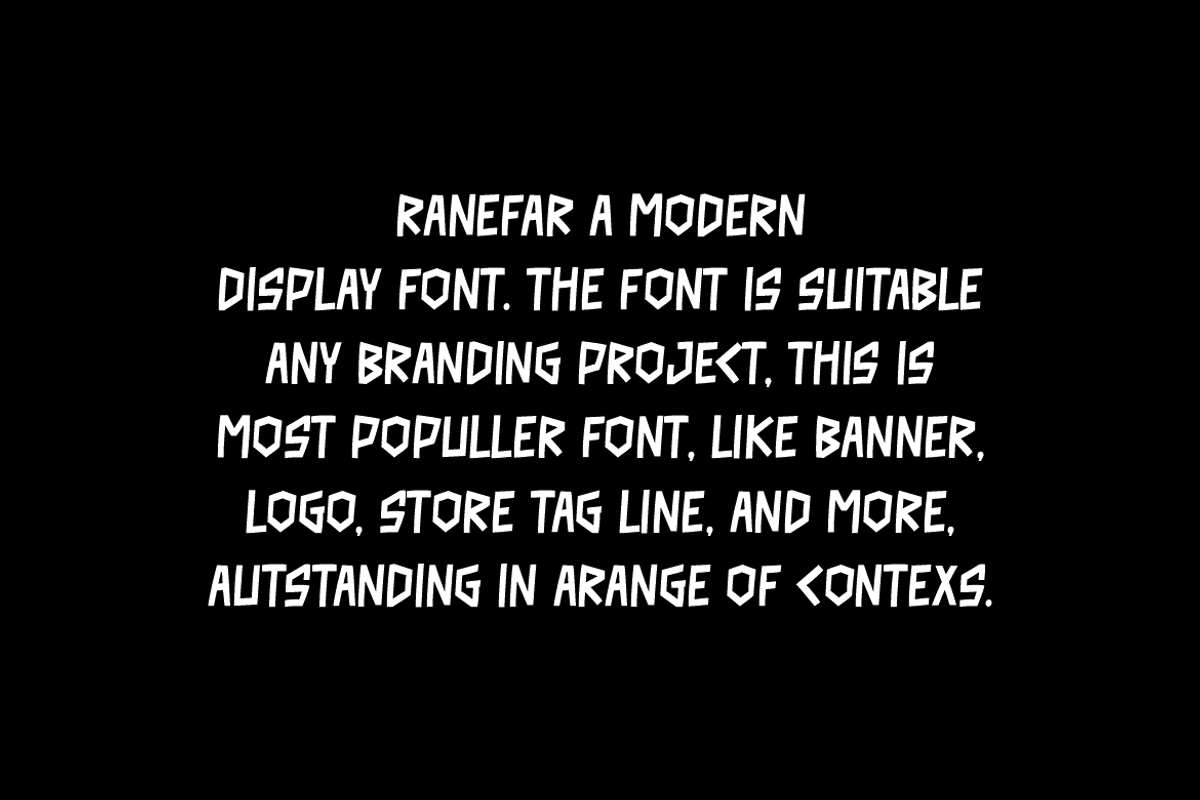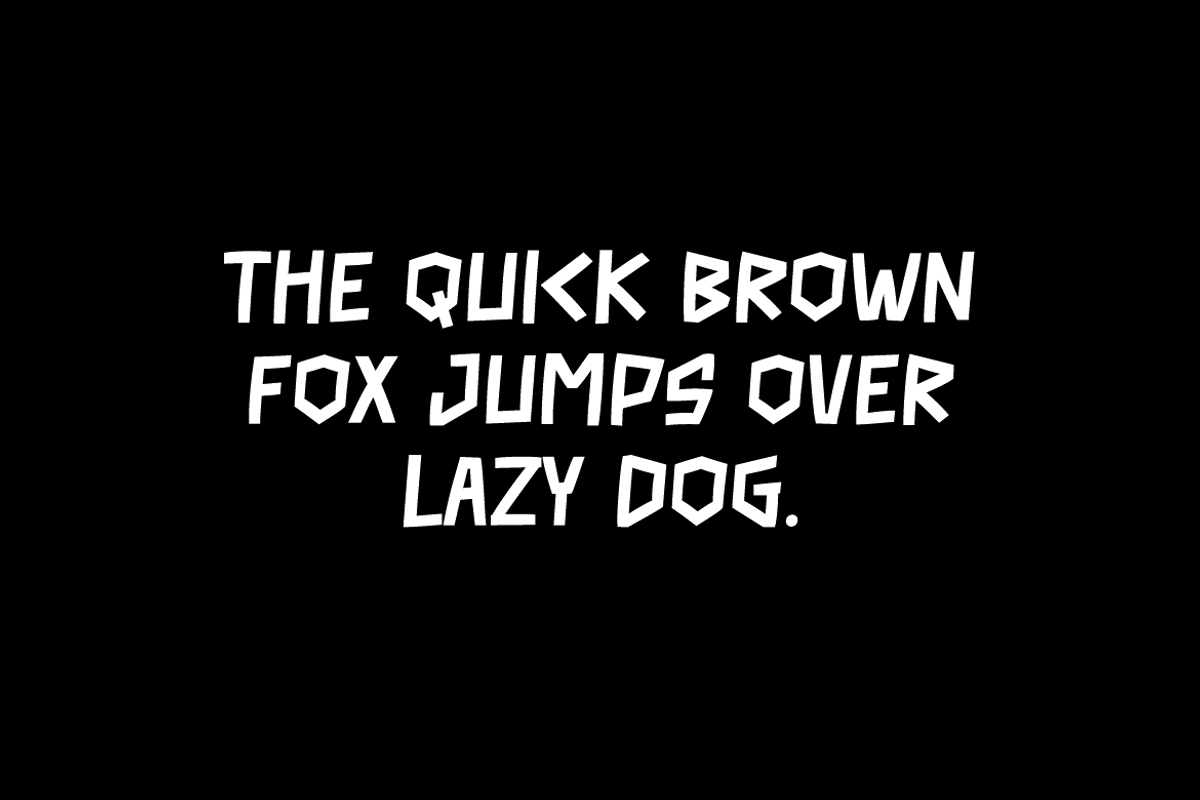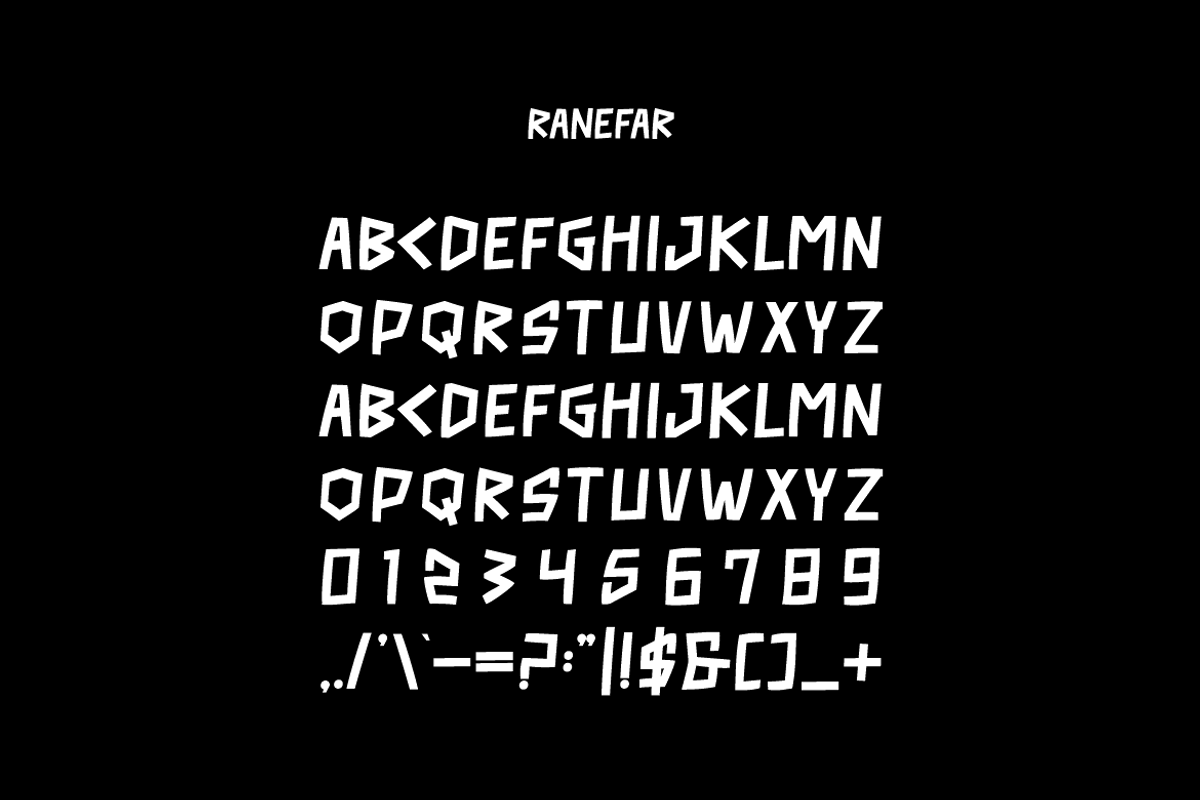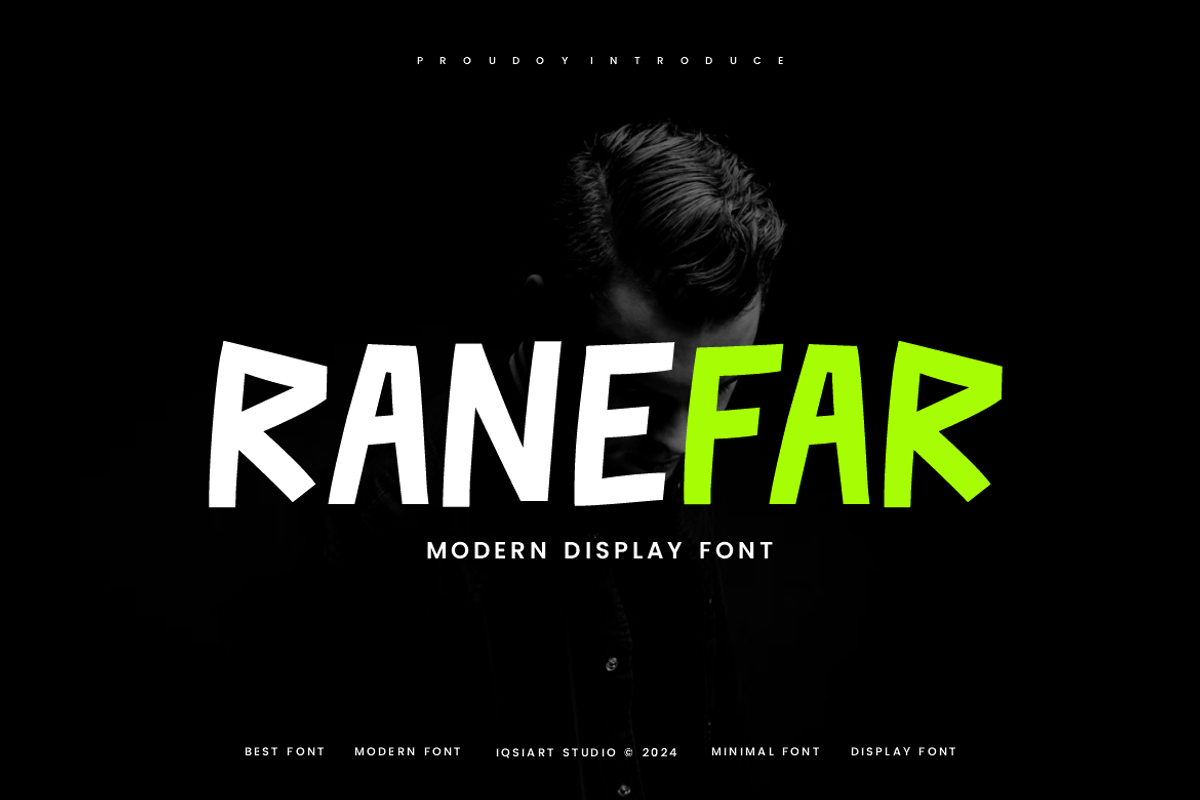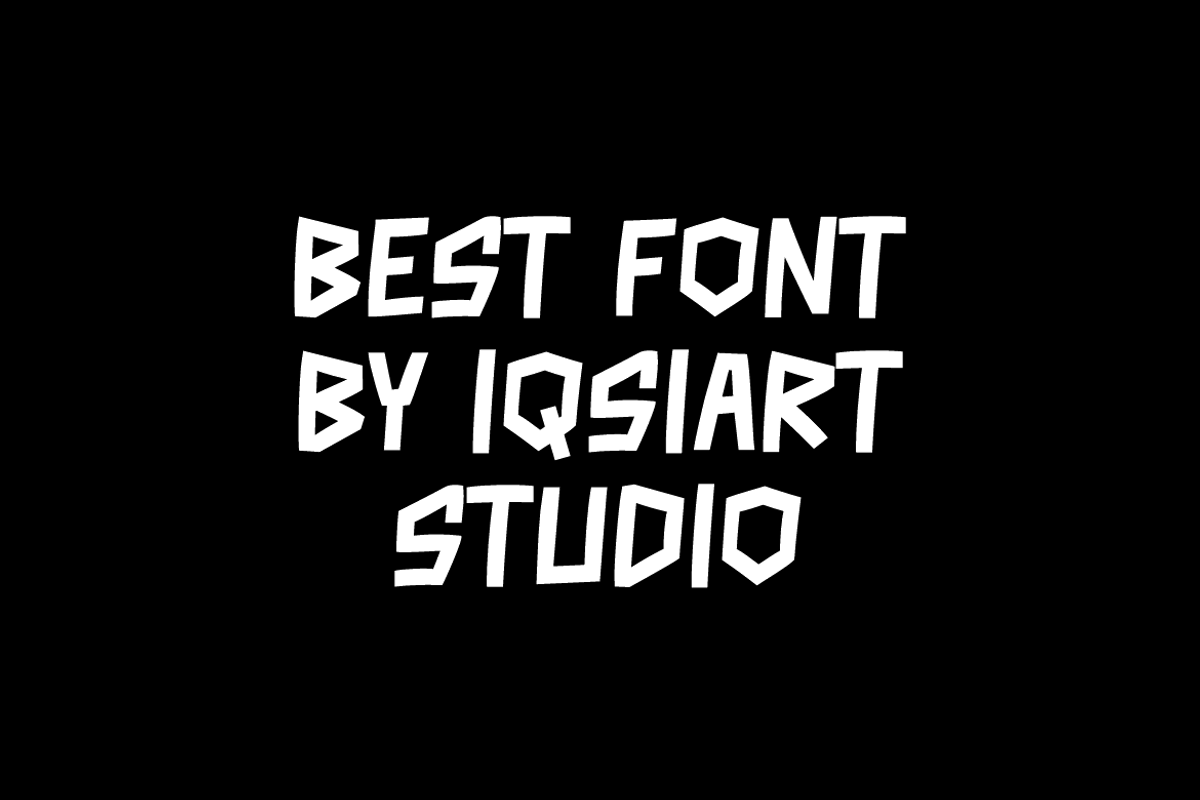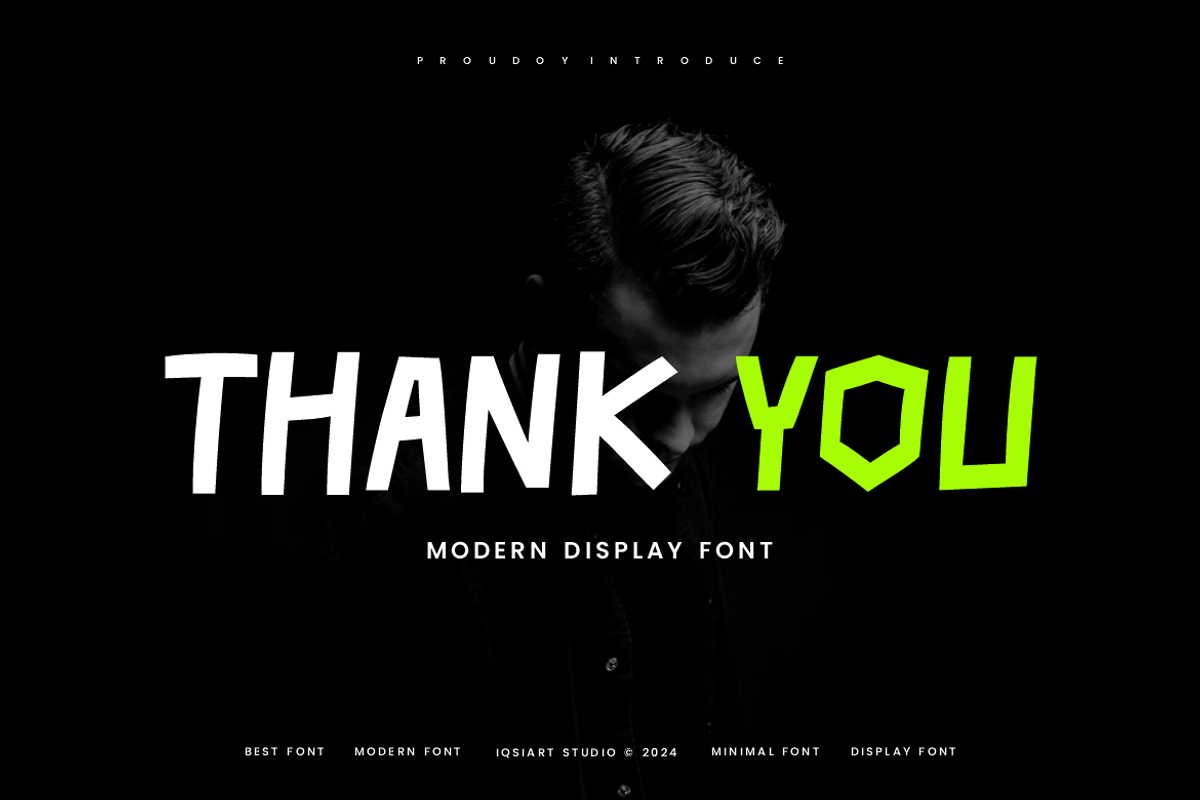
Ranefar - Modern Font
Ranefar Font is a best and authentic display font. This font can be used for your various needs. We provide various themes and font styles. visit our profile to get a wide variety of themes and different font styles you need.